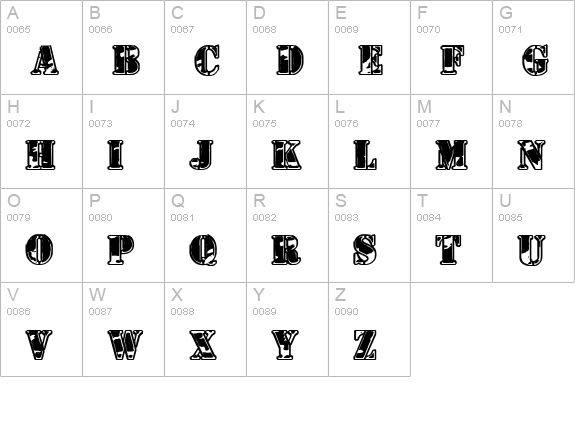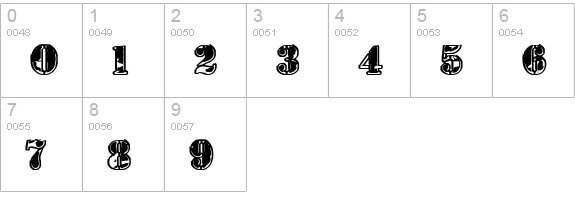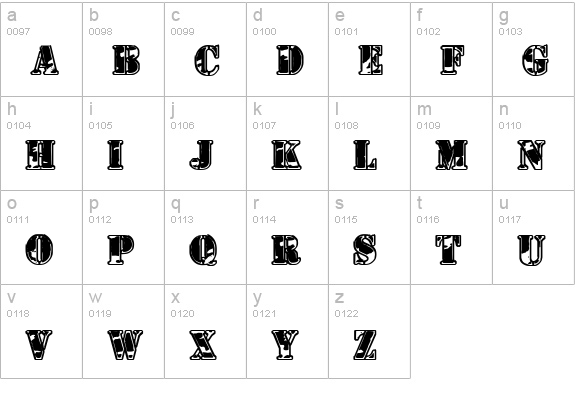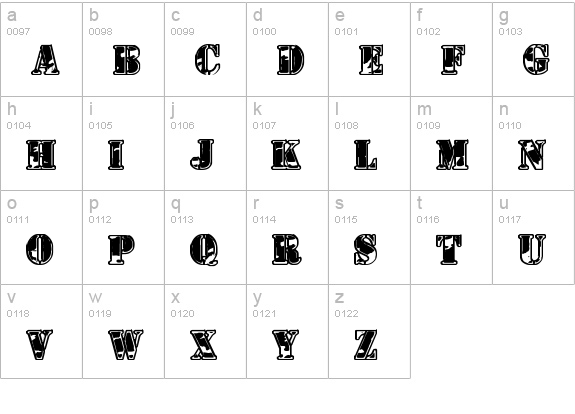
1st Cav II Font Details
1st Cav II font is a bold and striking typeface that exudes strength and modernity. With its sharp angles and clean lines, this font is perfect for creating eye-catching headlines or branding materials. The geometric design of 1st Cav II font gives it a contemporary edge, making it ideal for projects that require a touch of sophistication. What's even better is that 1st Cav II font is available for free download at FontsMarket.com. This means you can easily access this versatile typeface and use it in your designs without any cost. Whether you're working on a poster, logo, or website, 1st Cav II font will add a touch of elegance and professionalism to your projects. Download it today and elevate your design game with this exceptional font.